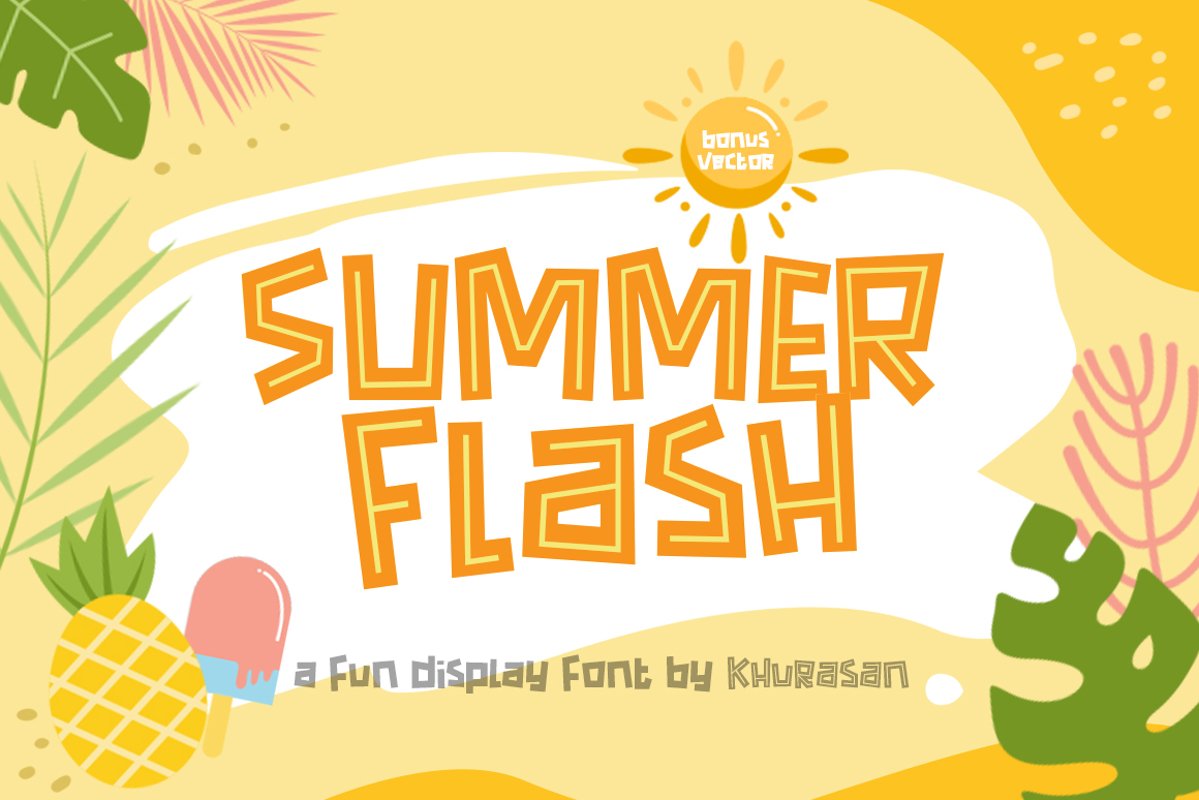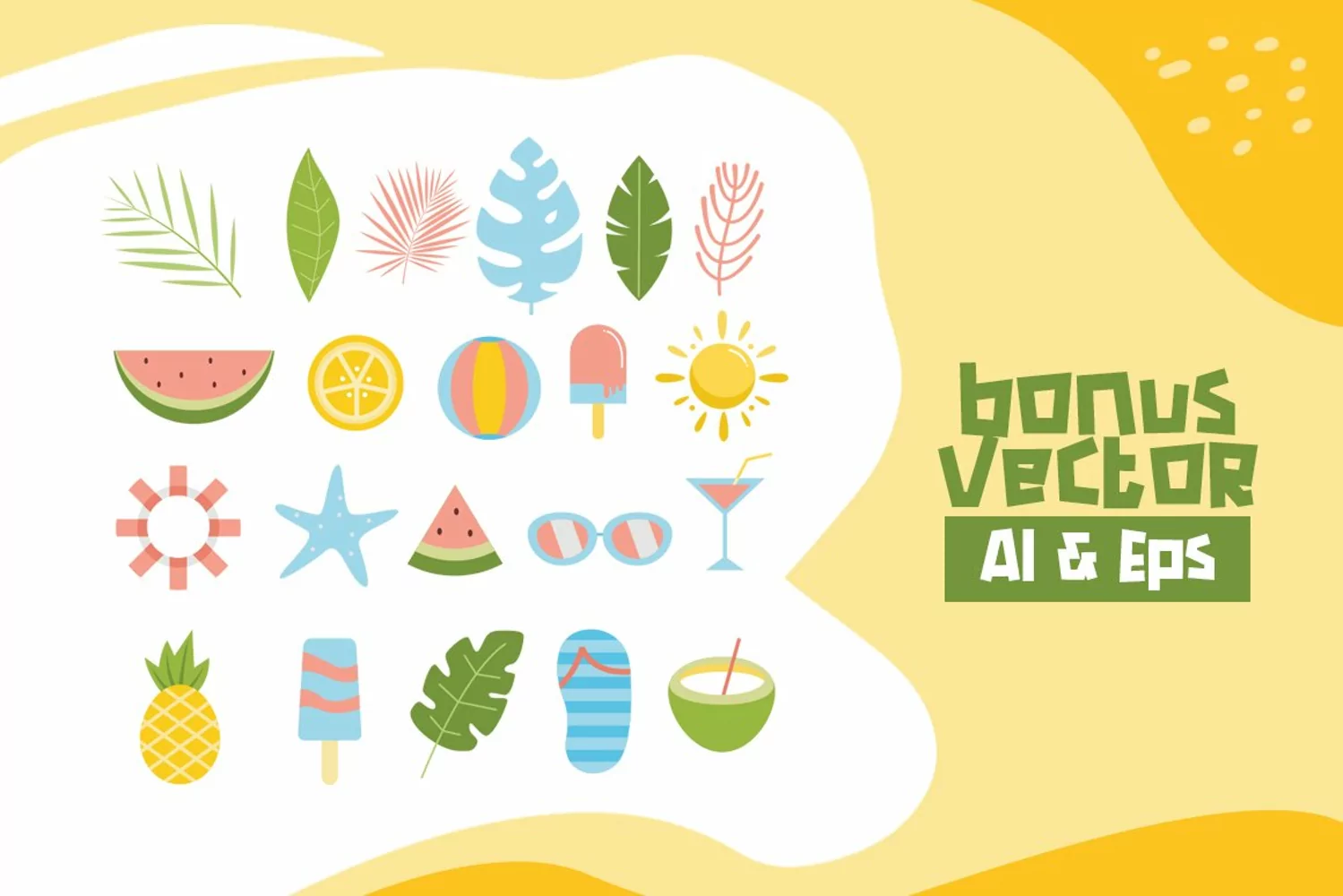
Introducing, Summer Flash font a fun display/decorative typeface with cheerful theme for your fun project. Summer Flash font with two different style. Summer Flash font suitable for logo, branding, greeting card, poster and any design that you create.